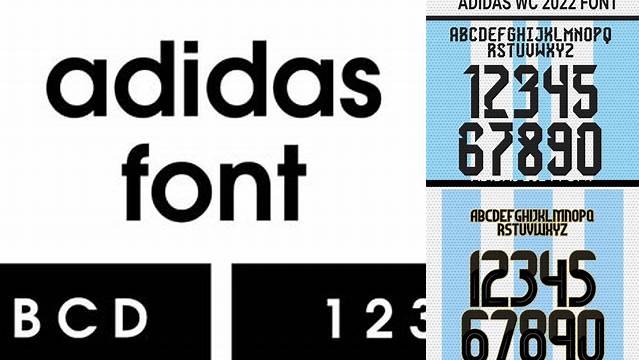
Adidas Football Font: Free Download Alternatives
Hey guys! Are you a football fanatic, a graphic designer, or just someone who appreciates the sleek and sporty aesthetics of the Adidas brand? If so, you've probably admired the distinctive font used on Adidas football jerseys and merchandise. This article will dive deep into the world of the Adidas football font, providing you with everything you need to know about its history, characteristics, and, most importantly, how to find it for free. We'll explore the challenges of obtaining this font due to copyright restrictions, offer some clever workarounds, and introduce you to similar fonts that capture the same energetic vibe. So, buckle up and get ready to explore the exciting world of Adidas football fonts!
Understanding the Allure of the Adidas Football Font
The Adidas football font isn't just any typeface; it's a symbol of athleticism, performance, and global sporting culture. Its appeal lies in its:
- Distinctiveness: The font is instantly recognizable and associated with high-performance sports apparel.
- Modernity: It has a contemporary and dynamic feel that reflects the fast-paced nature of football.
- Readability: Designed for clarity on jerseys, the font ensures easy identification of players.
- Brand Association: The font is inextricably linked to the Adidas brand, evoking feelings of quality, innovation, and sporting excellence.
This font embodies the spirit of the game, making it a popular choice not only for sports-related designs but also for various creative projects seeking a touch of athleticism and modernity. Understanding the allure of the Adidas football font helps appreciate why so many people are eager to incorporate it into their work.
Workaround 2: Exploring Font Alternatives
While obtaining the exact Adidas football font for free might be a pipe dream, the good news is that there are plenty of font alternatives that capture the same sporty and modern aesthetic. These alternatives can be used in your designs without worrying about copyright issues. Here are a few categories of fonts to explore:
- Geometric Sans-Serif Fonts: Fonts like Montserrat, Open Sans, and Lato offer a clean and modern look that's similar to the Adidas font.
- Condensed Fonts: These fonts have a narrow width, which is a common characteristic of sports-related fonts. Examples include Bebas Neue and Oswald.
- Futuristic Fonts: Fonts with a futuristic or tech-inspired design can also evoke a similar feel. Check out fonts like Exo and Rajdhani.
By experimenting with different font combinations and styles, you can create designs that have the same visual impact as the Adidas font without directly using the copyrighted typeface. Remember to consider factors like readability, weight, and overall aesthetic when choosing your font alternative.
Top Font Alternatives to the Adidas Football Font
Finding the perfect substitute for the Adidas football font can feel like a quest, but fear not! There are numerous fonts that capture a similar vibe, offering a blend of athleticism, modernity, and readability. Here are some top contenders:
Conclusion: Embracing Creativity with Font Alternatives
While the official Adidas football font may be elusive for free download due to copyright restrictions, there are plenty of exciting and legal ways to achieve a similar look and feel. By using font identification tools, exploring font alternatives, and understanding copyright considerations, you can create stunning designs that capture the spirit of athleticism and modernity. So, go ahead, unleash your creativity, and embrace the world of font alternatives to bring your vision to life! Remember, the key is to find fonts that resonate with your project's message and aesthetic, while always respecting intellectual property rights. Happy designing, folks!